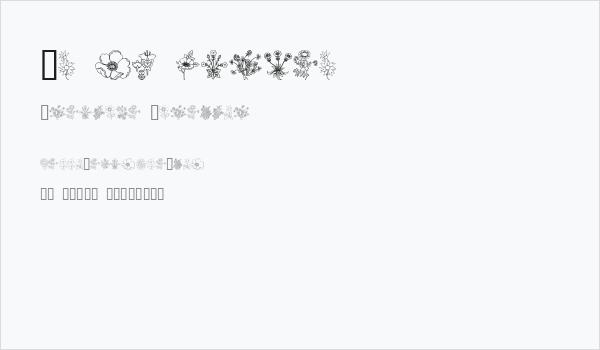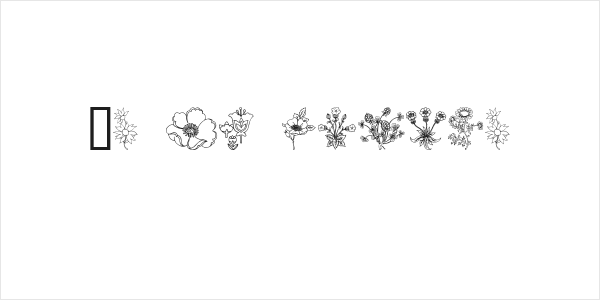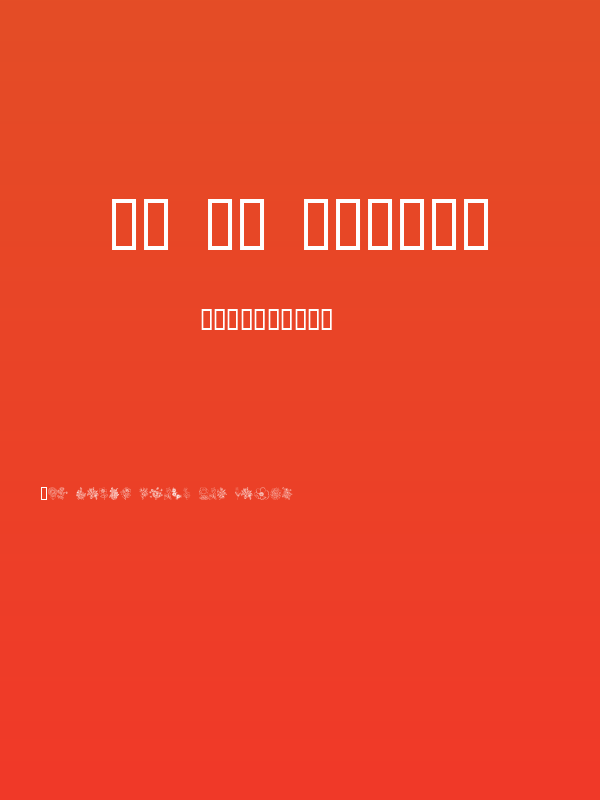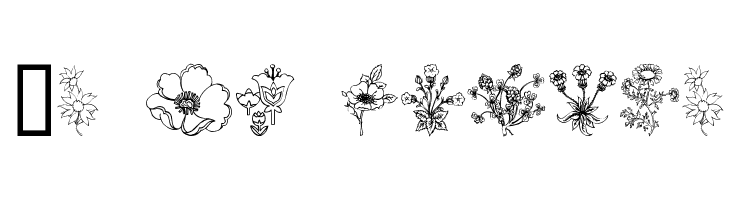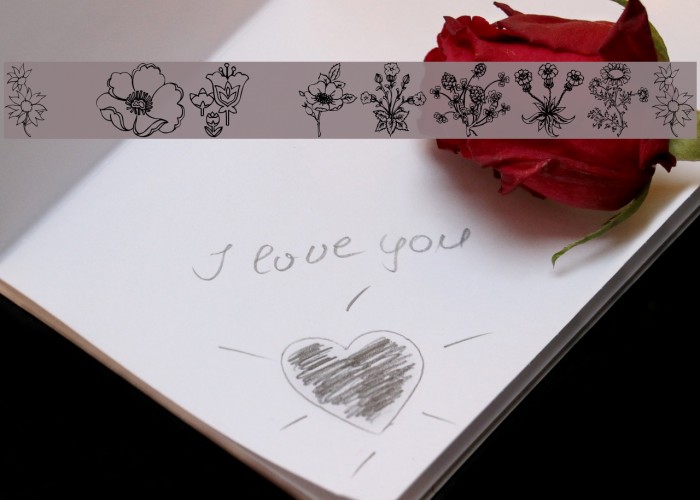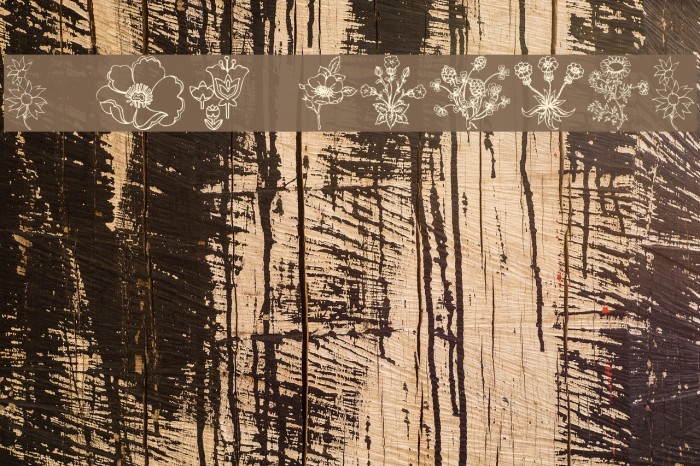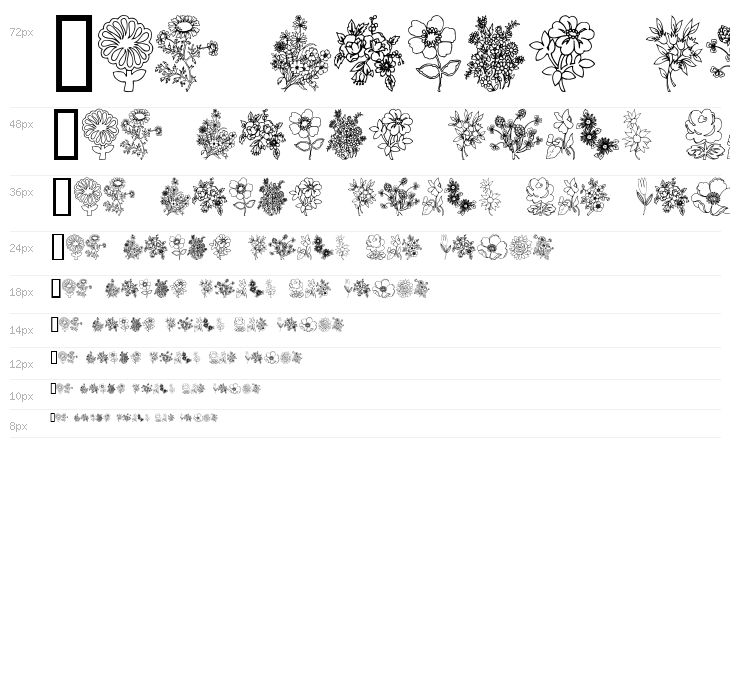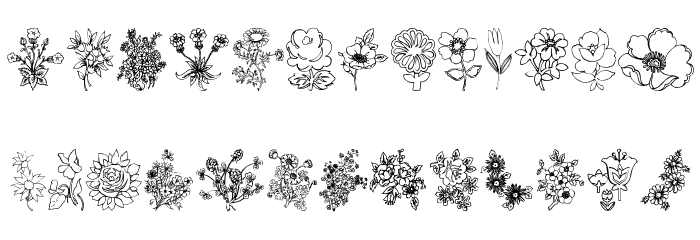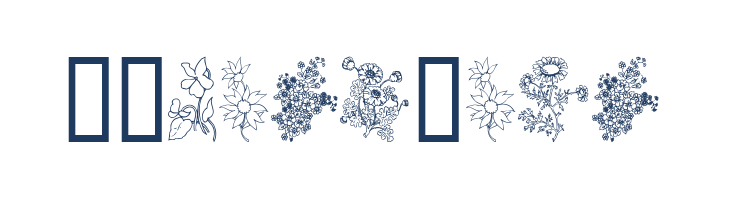
In my garden Font
A decorative font featuring hand-drawn botanical and floral illustrations in place of standard alphanumeric characters, with each glyph represented by a unique flower or plant sketch. The style is organic and detailed, evoking a whimsical, garden-inspired aesthetic.
| Overall Style | Decorative, Whimsical, Botanical |
| Use Case | Logos, Headlines, Decorative elements |
| Proposed Projects | Wedding invitations, greeting cards, botanical branding, nature-themed posters, decorative headings. |